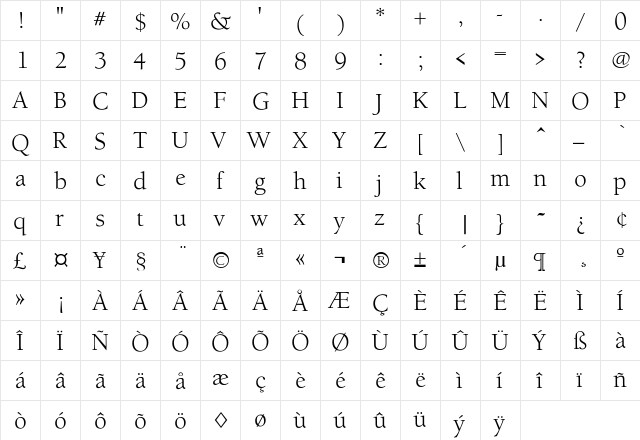
Hastings Regular
Design Context for Hastings Typeface
Hastings offers clean, dependable letterforms without strong stylistic allegiance, making it a practical choice for designers who need flexibility.
Pro Tip: Use Hastings in both headline and body roles to test its range before committing to a single application.